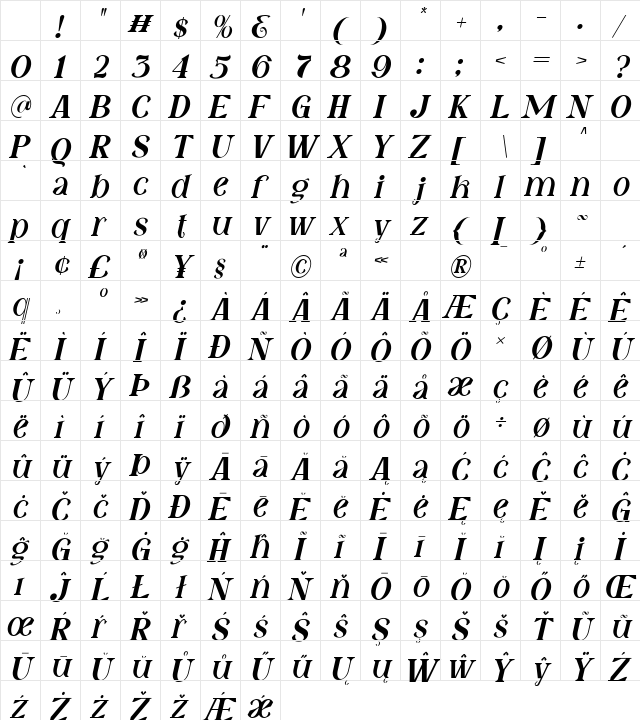
Complete Fatin Gengky Italic glyph index. Displaying only characters natively supported by Fatin Gengky Italic font.
Fatin Gengky is a composed and adaptable typeface that performs quietly and consistently across a wide range of design contexts. The slanted form adds forward momentum and visual energy.